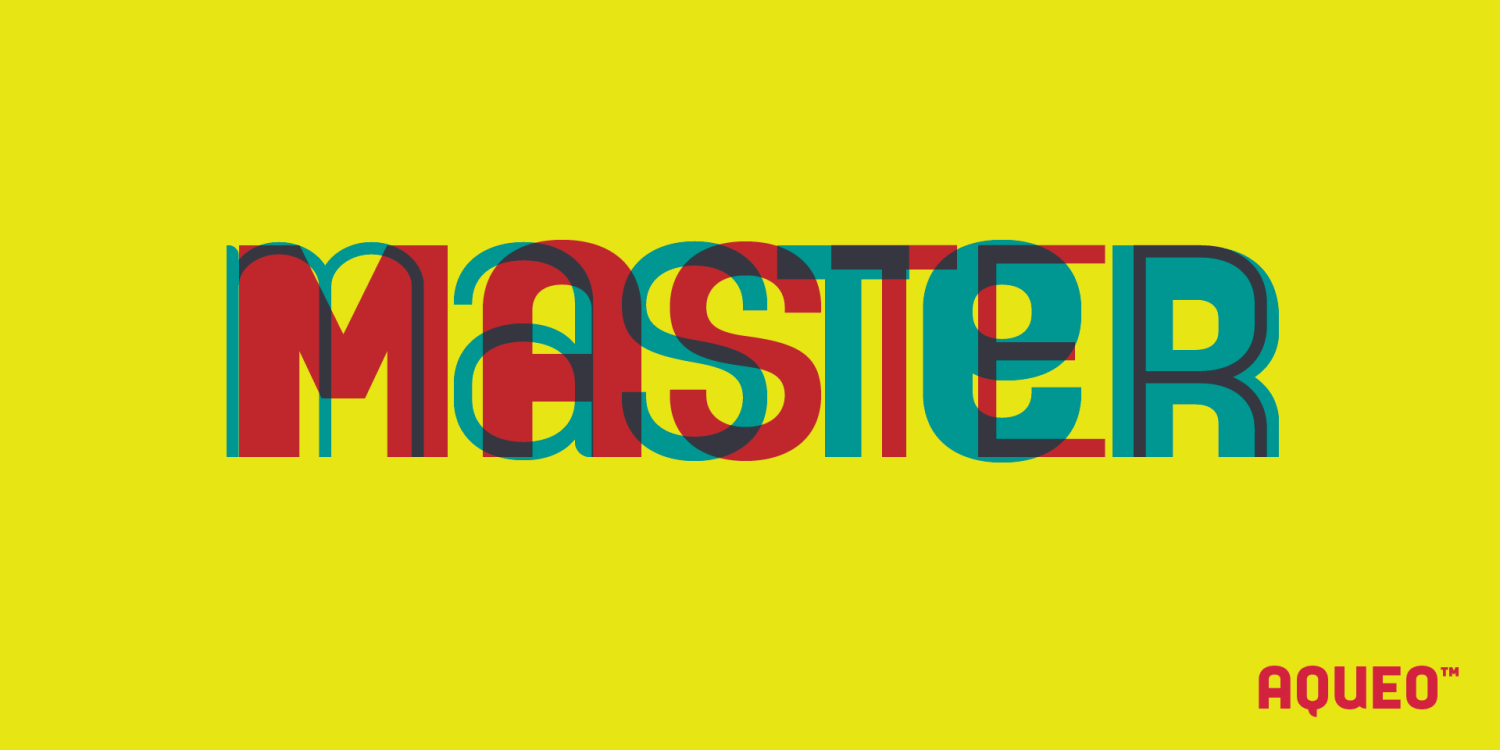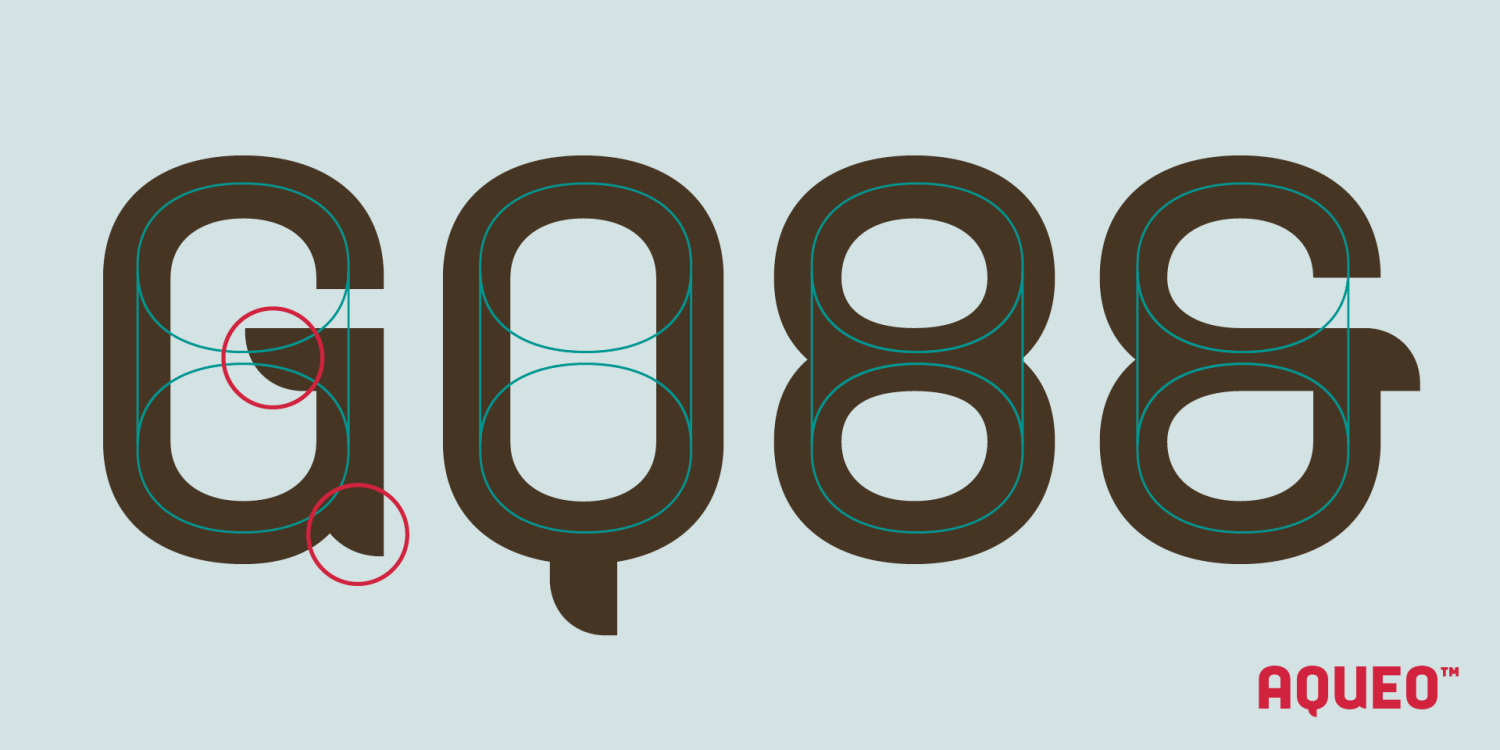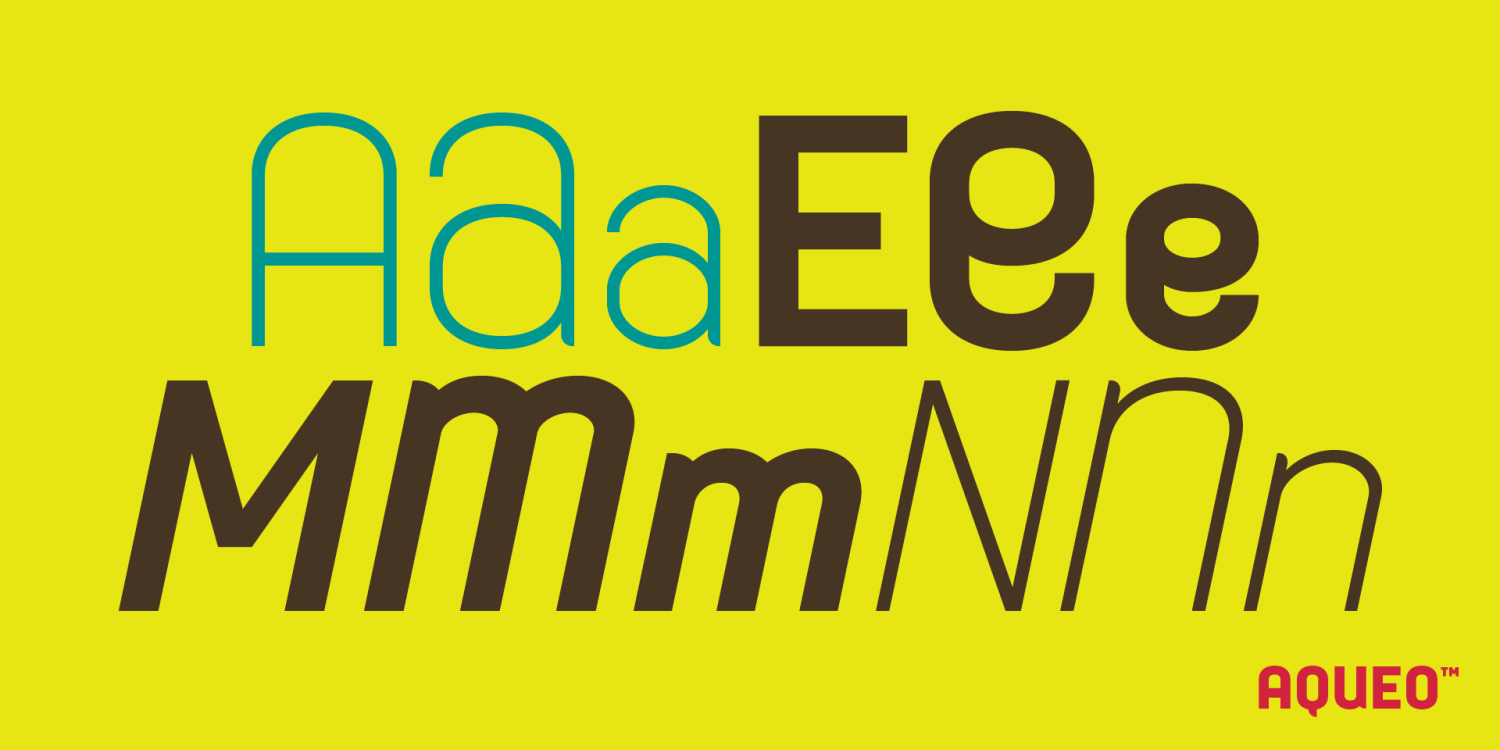
Aqueo™ is a versatile display font family inspired by the cylindrical wireframe of a water glass. The one-sided round corner details added a contemporary feel to this unique typeface. It comes in 6 weights and 12 styles. To ensure the accuracy of…